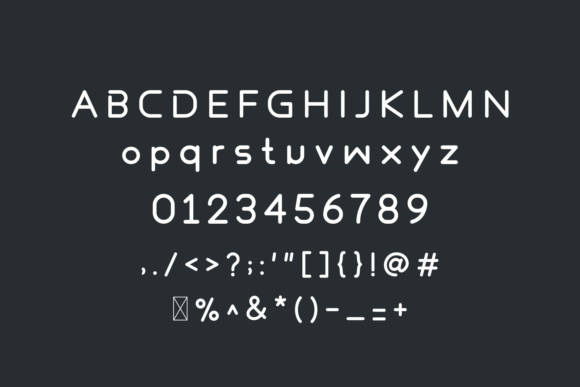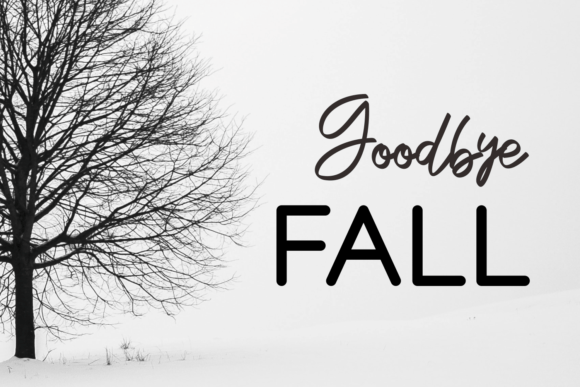
Bastun Font: Elevate Your Designs with a Cool and Unique Sans Serif Font
In the world of typography, a font can make or break a design. As a designer or crafter, you’re constantly on the lookout for that perfect font to elevate your creations. Look no further than Bastun Font, a cool and unique sans serif font that’s sure to become a staple in your font library.
What is Bastun Font?
Bastun Font is a modern sans serif font that’s been carefully crafted to provide a clean and sleek look to your designs. Its unique style and highly detailed features make it an excellent choice for a wide range of projects, from branding and advertising to packaging and digital media.
Key Features of Bastun Font
- Unique and Cool Design: Bastun Font boasts a distinctive style that’s both modern and eye-catching. Its clean lines and precise curves make it perfect for designs that require a touch of sophistication.
- Highly Detailed: This font is meticulously crafted to ensure that every letter and character is of the highest quality. The attention to detail is evident in the font’s crisp and clear appearance.
- Versatile: Whether you’re working on a logo, brochure, website, or social media graphics, Bastun Font is an excellent choice. Its versatility ensures that it will complement any design style or theme.
- Easily Readable: The font’s clear and concise design makes it easy to read, even at small sizes. This ensures that your message gets across effectively, without compromising on style.
Why Choose Bastun Font?
With so many fonts available, why choose Bastun Font? Here are just a few reasons why this font stands out from the crowd:
- Enhance Your Designs: Bastun Font has the potential to elevate any creation, adding a touch of professionalism and style to your designs.
- Stand Out from the Crowd: With its unique design, Bastun Font will help your designs stand out from the competition. Whether you’re working on a personal project or a client’s brief, this font will ensure that your work gets noticed.
- Save Time: With Bastun Font, you can save time searching for the perfect font. This font is versatile and can be used across multiple projects, reducing the need to search for alternative fonts.
How to Use Bastun Font
Using Bastun Font is easy. Here are a few tips to get you started:
- Pair it with Other Fonts: Bastun Font works well when paired with other fonts. Experiment with different combinations to create a unique look that complements your design.
- Experiment with Sizes and Colors: Don’t be afraid to experiment with different sizes and colors. Bastun Font looks great in a variety of sizes and colors, so try out different options to see what works best for your design.
- Use it Across Multiple Projects: With its versatility, Bastun Font can be used across multiple projects. Consider using it for a range of designs, from business cards to billboards.
In conclusion, Bastun Font is a cool and unique sans serif font that’s sure to become a valuable addition to your font library. Its highly detailed design, versatility, and readability make it an excellent choice for a wide range of projects. Whether you’re a designer, crafter, or simply someone who appreciates great typography, Bastun Font is definitely worth checking out.